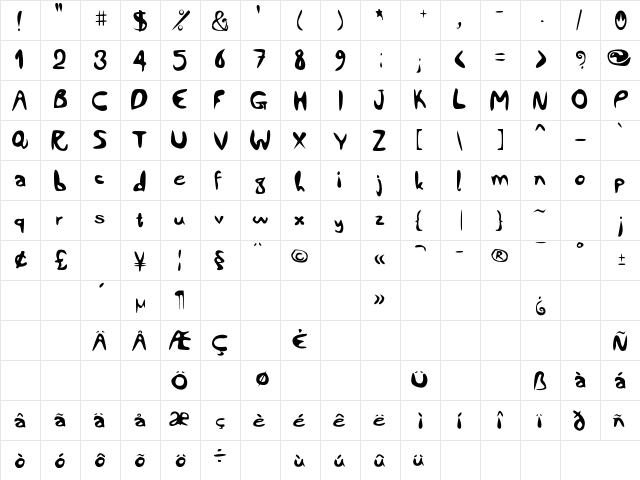
Comiccity Regular
| Designer | Lazaros16 |
Design Context for Comiccity Typeface
Comiccity has an approachable, lighthearted character — its loose, expressive forms are well-suited to children's content, casual branding, and fun-first design.
Font Pairing: Pairs well with a rounded or humanist sans for body copy, maintaining the friendly tone without relying on Comiccity to carry extended reading.
Pro Tip: Use Comiccity at larger display sizes where its expressive character can land. Pair with a clean, simple sans for body copy to maintain readability.